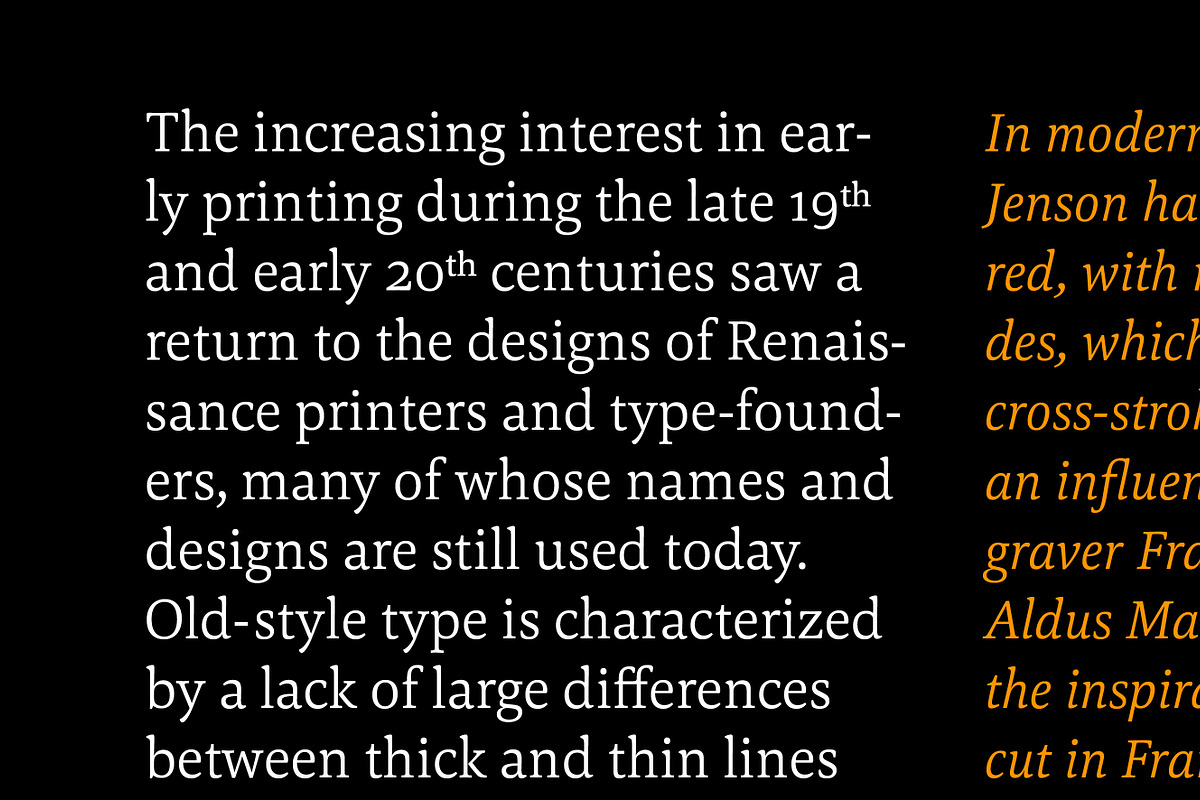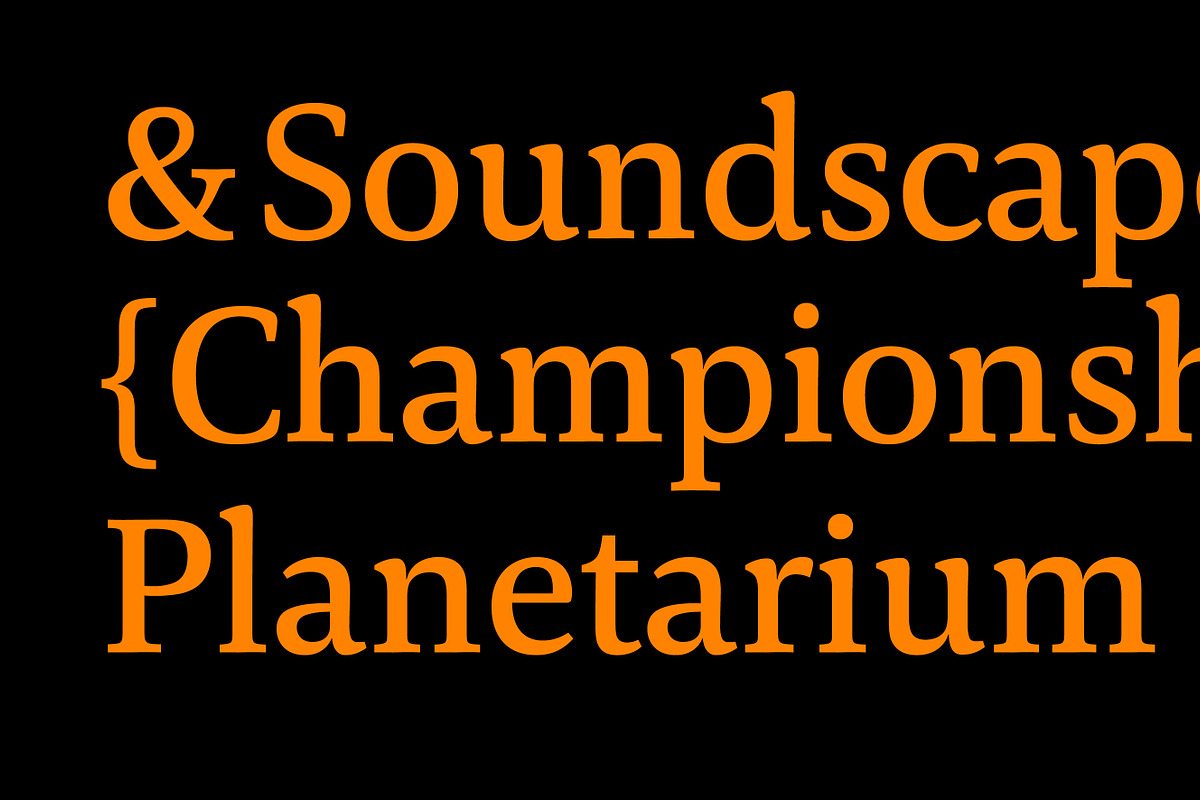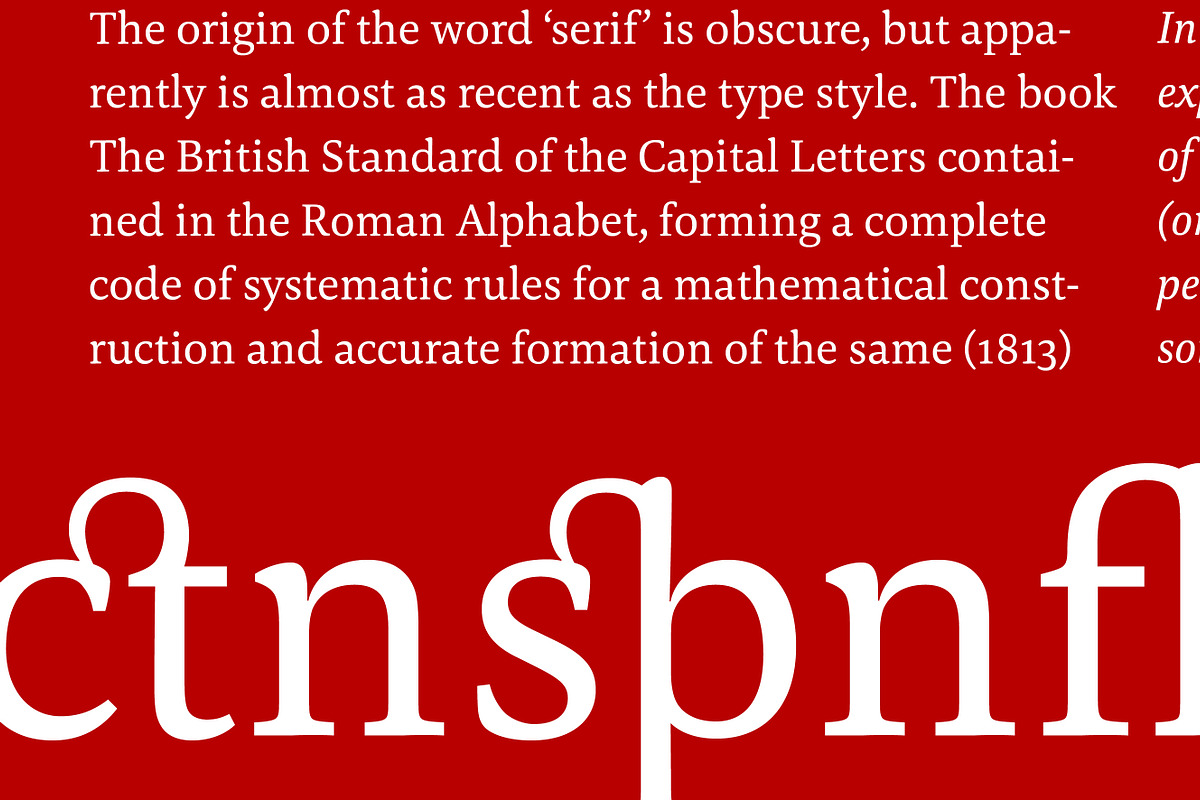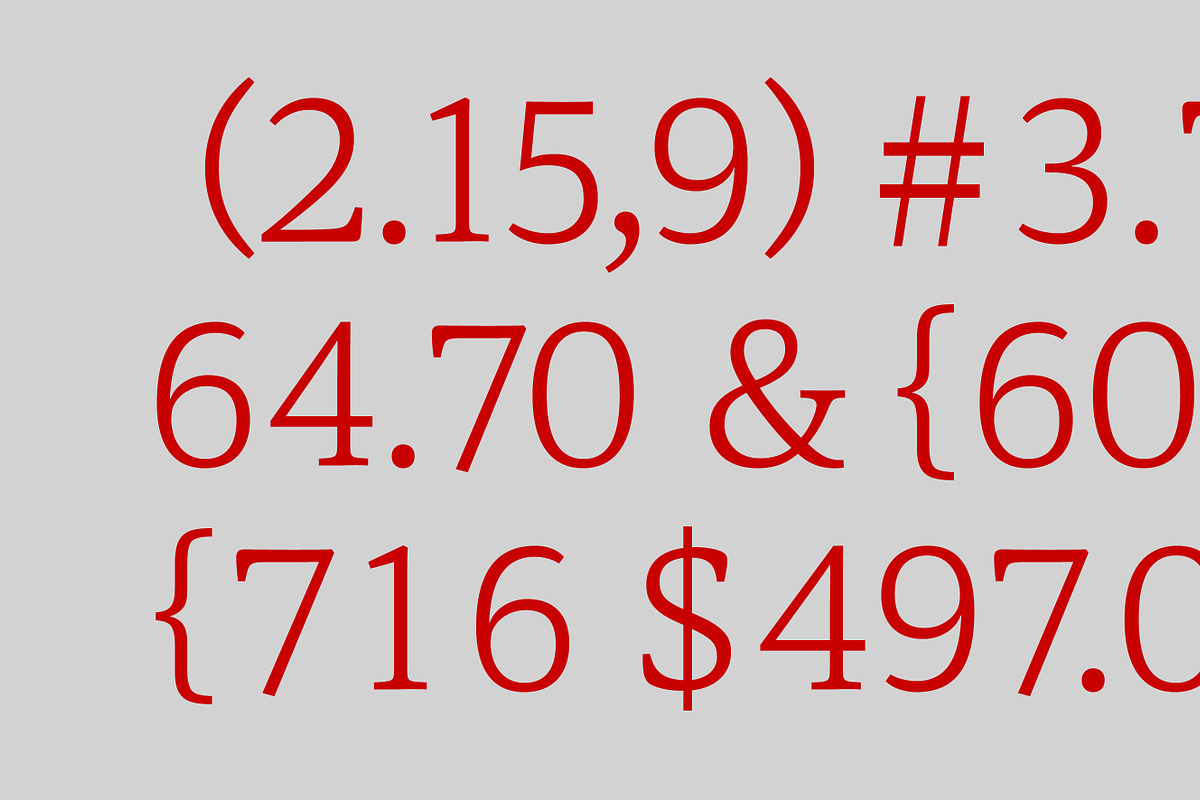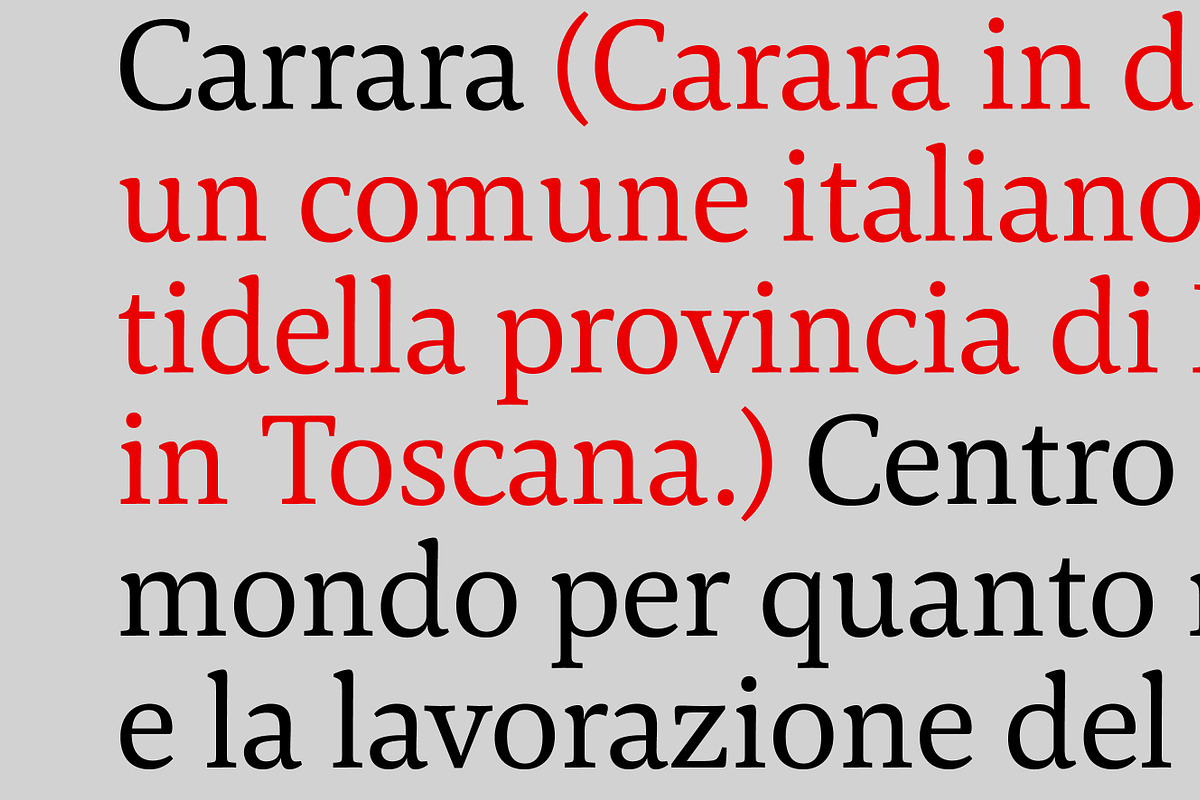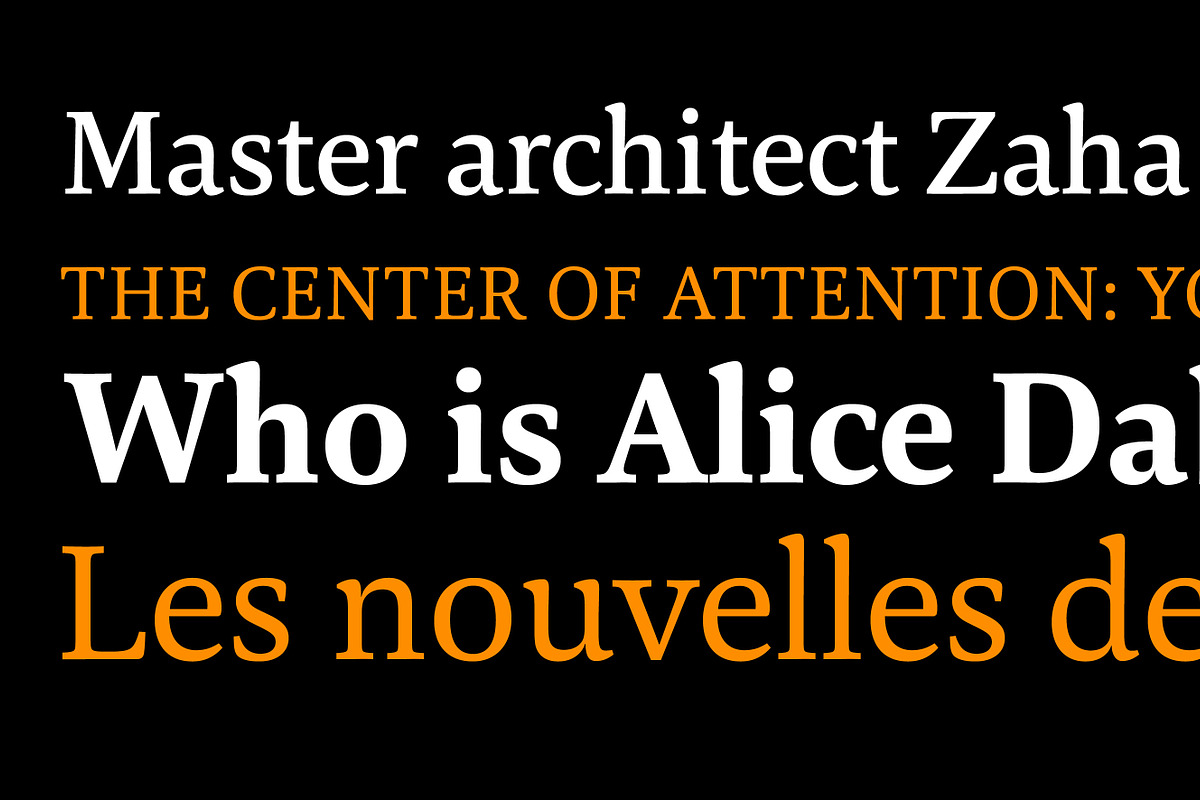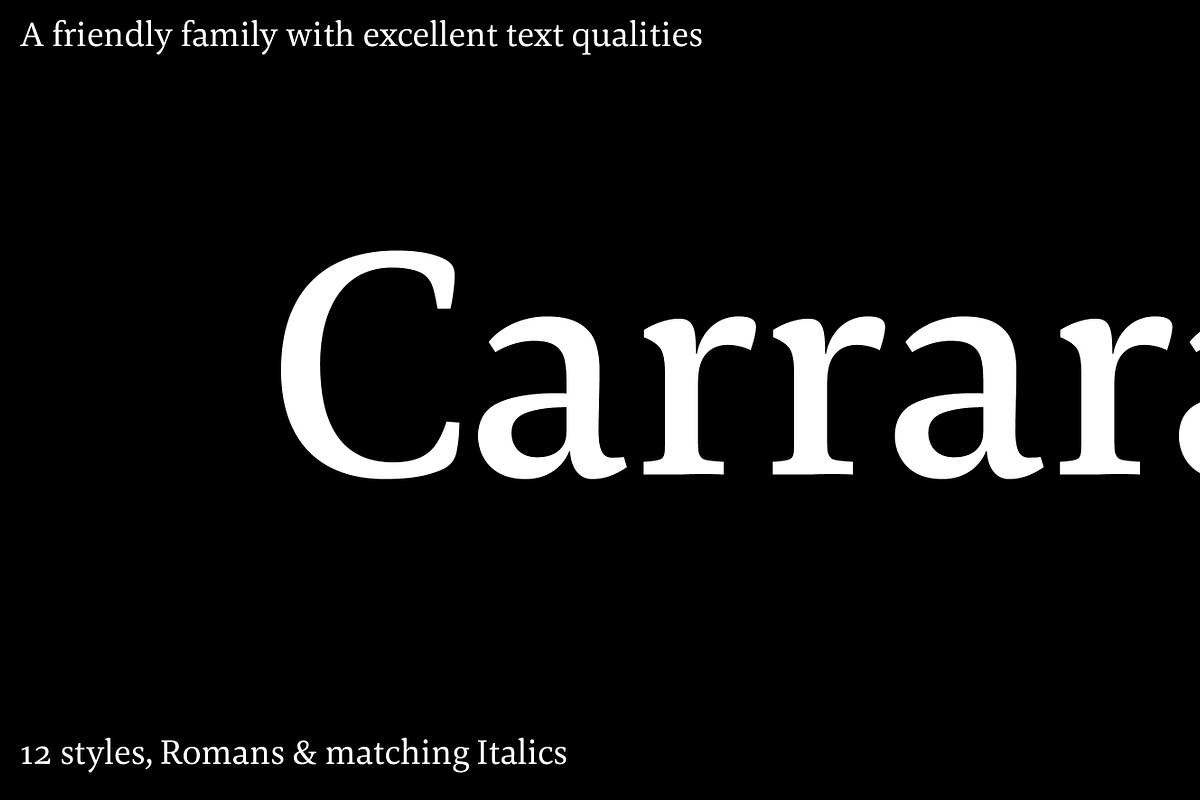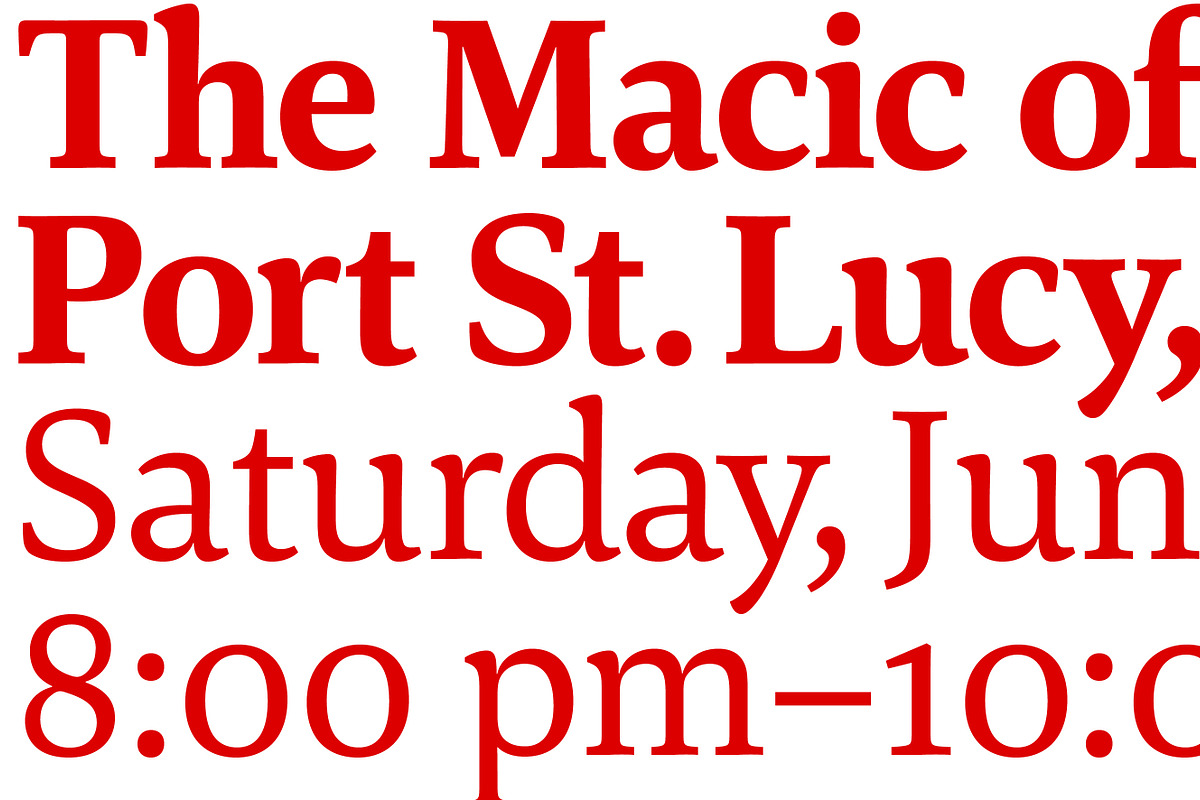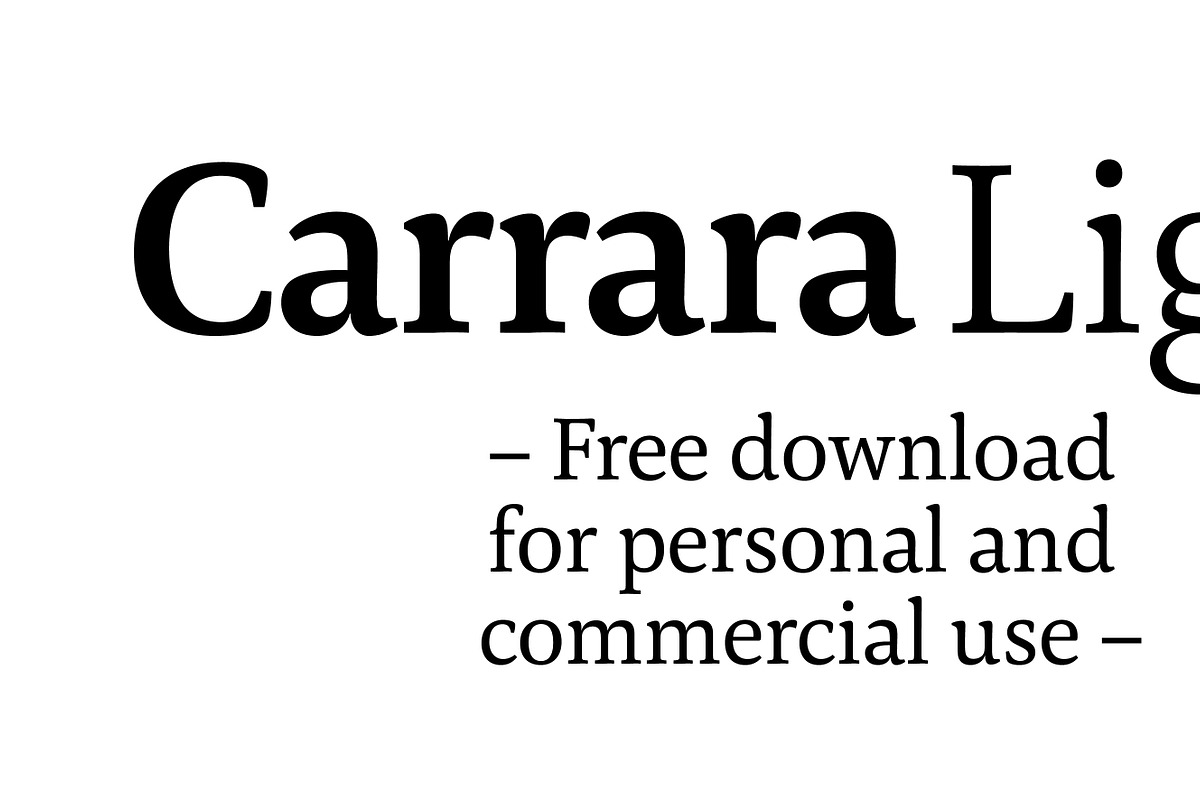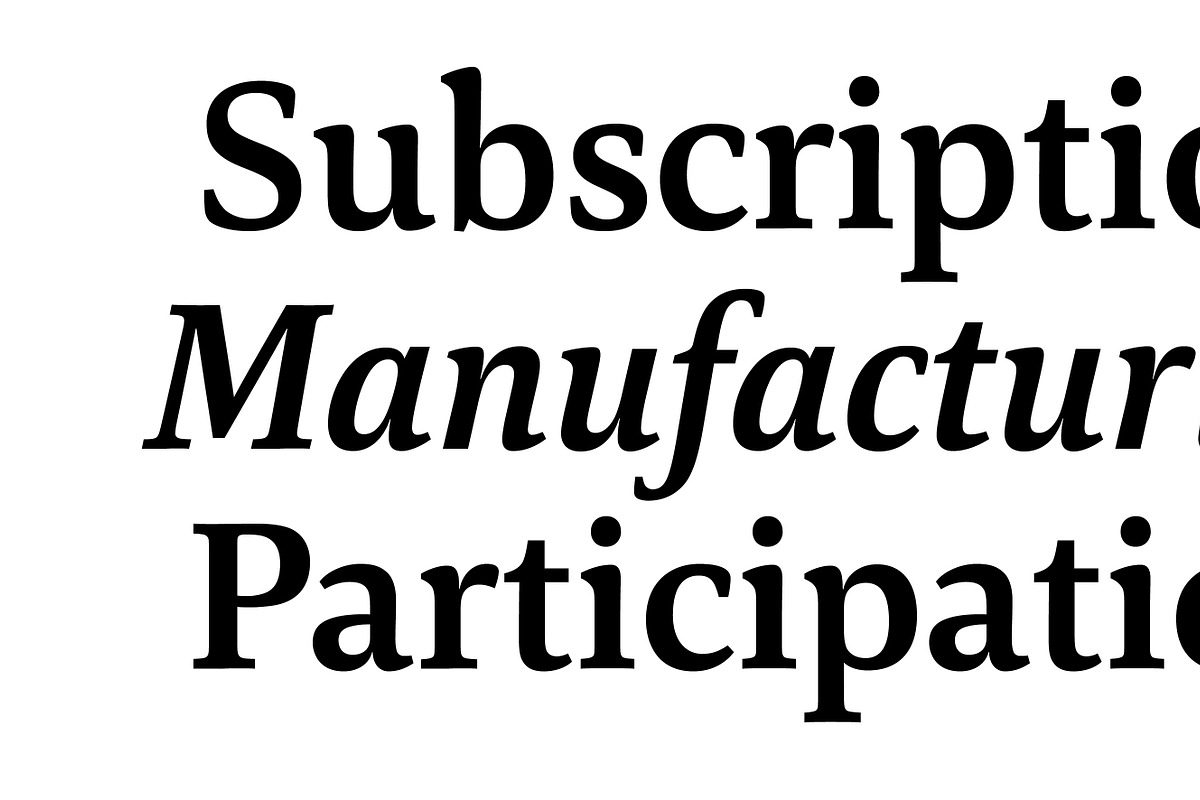
Carrara
Carrara is a serif font designed for readability in text applications. It features a classic transitional style and a solid structure that makes it assertive in body copy. In headlines, the individual details of the letterforms create a gentle flow, resulting in a distinguished appearance.